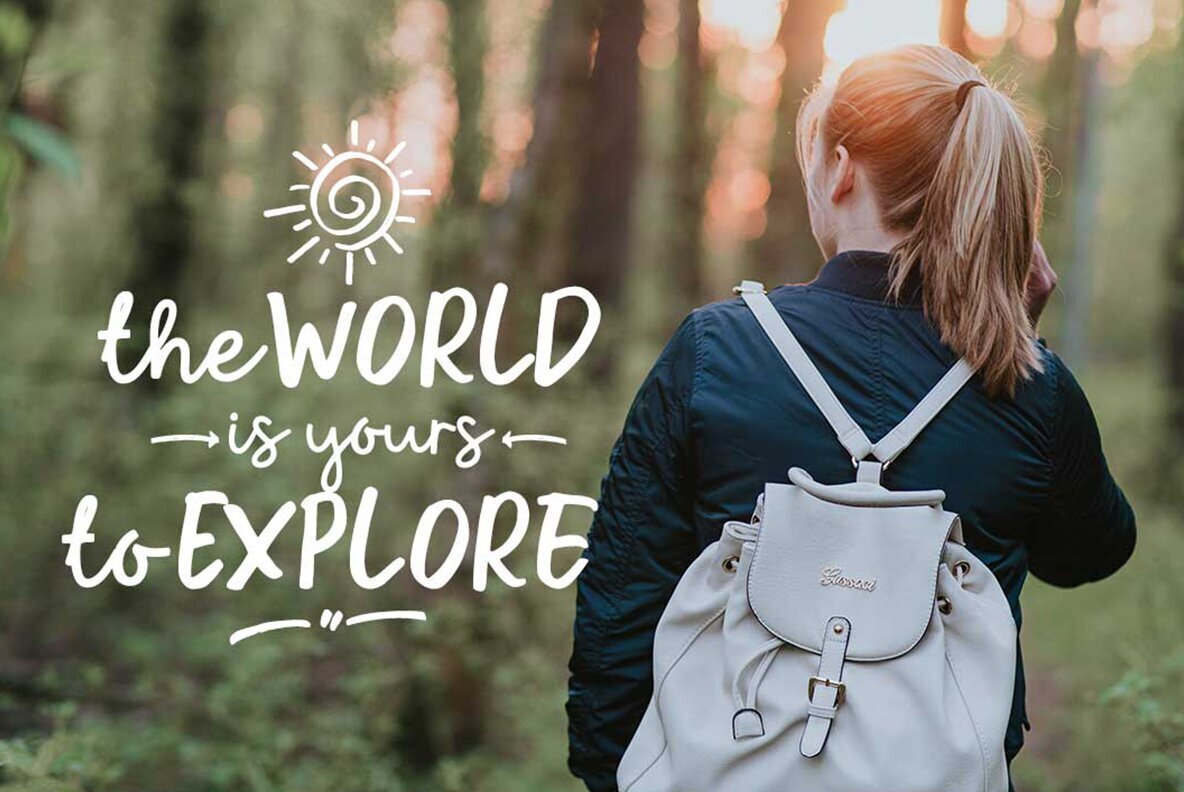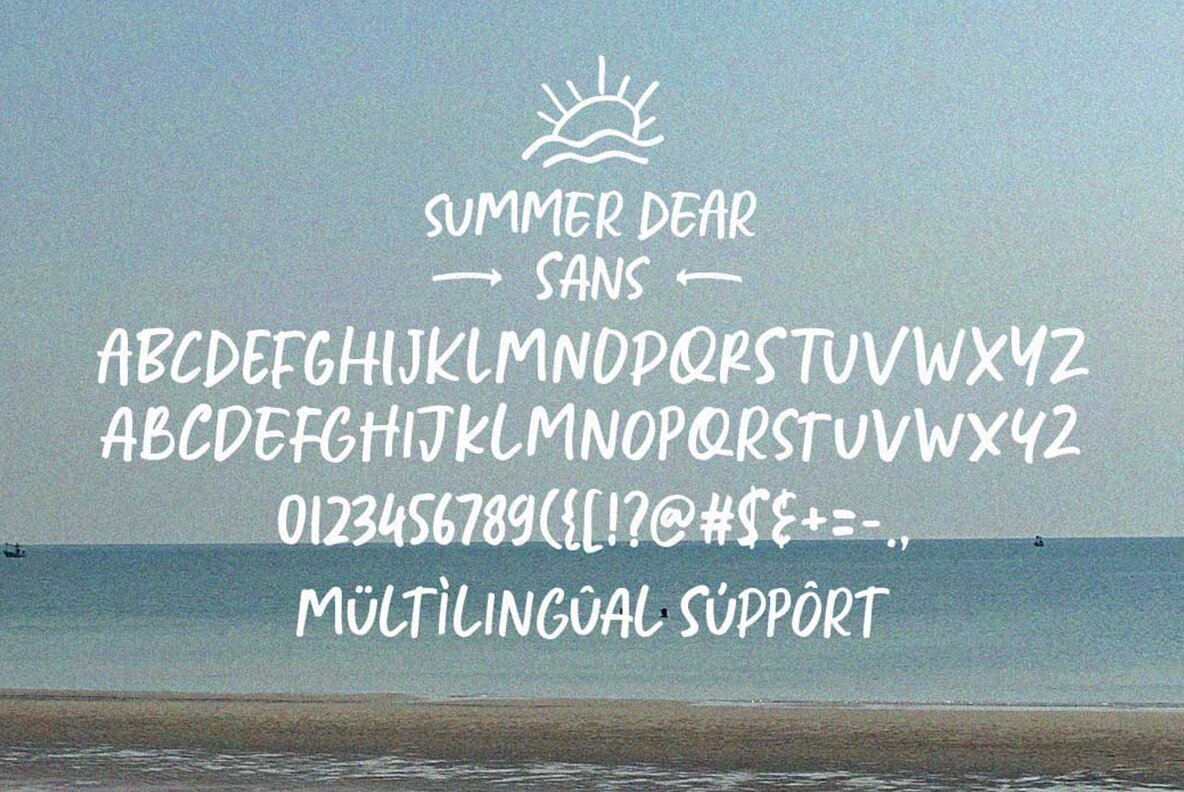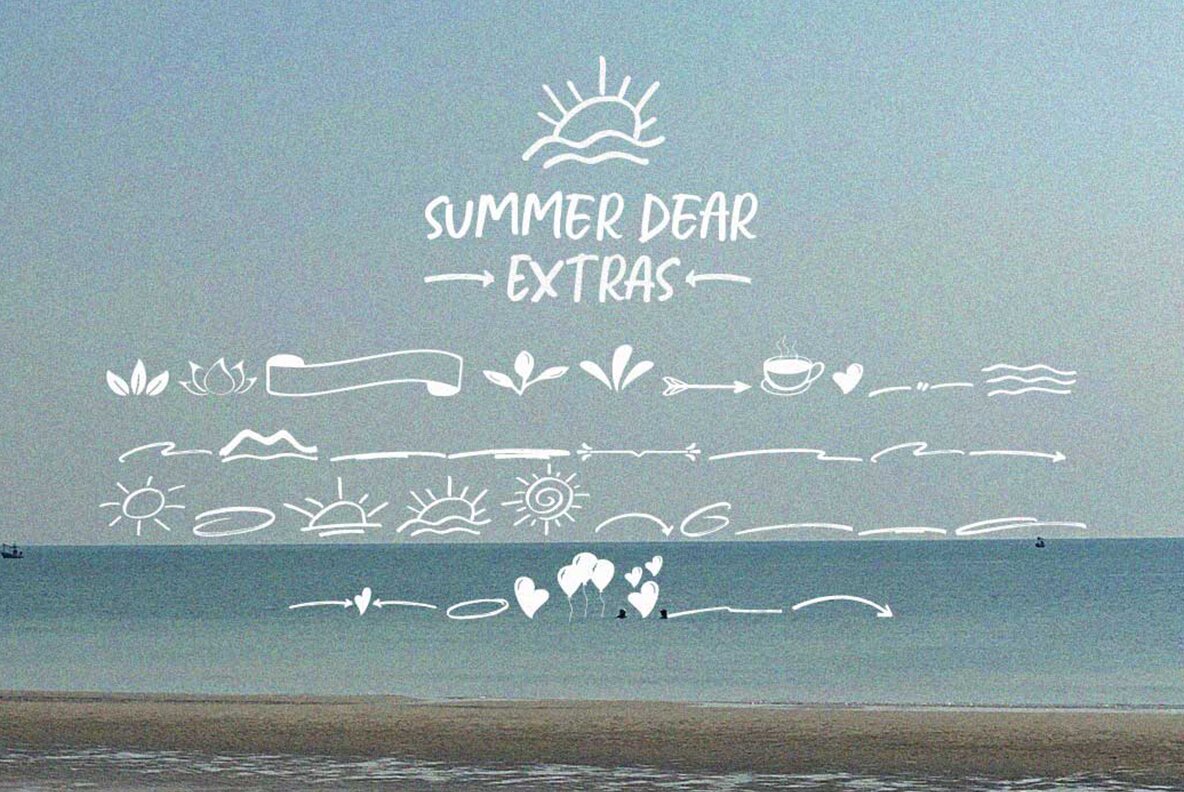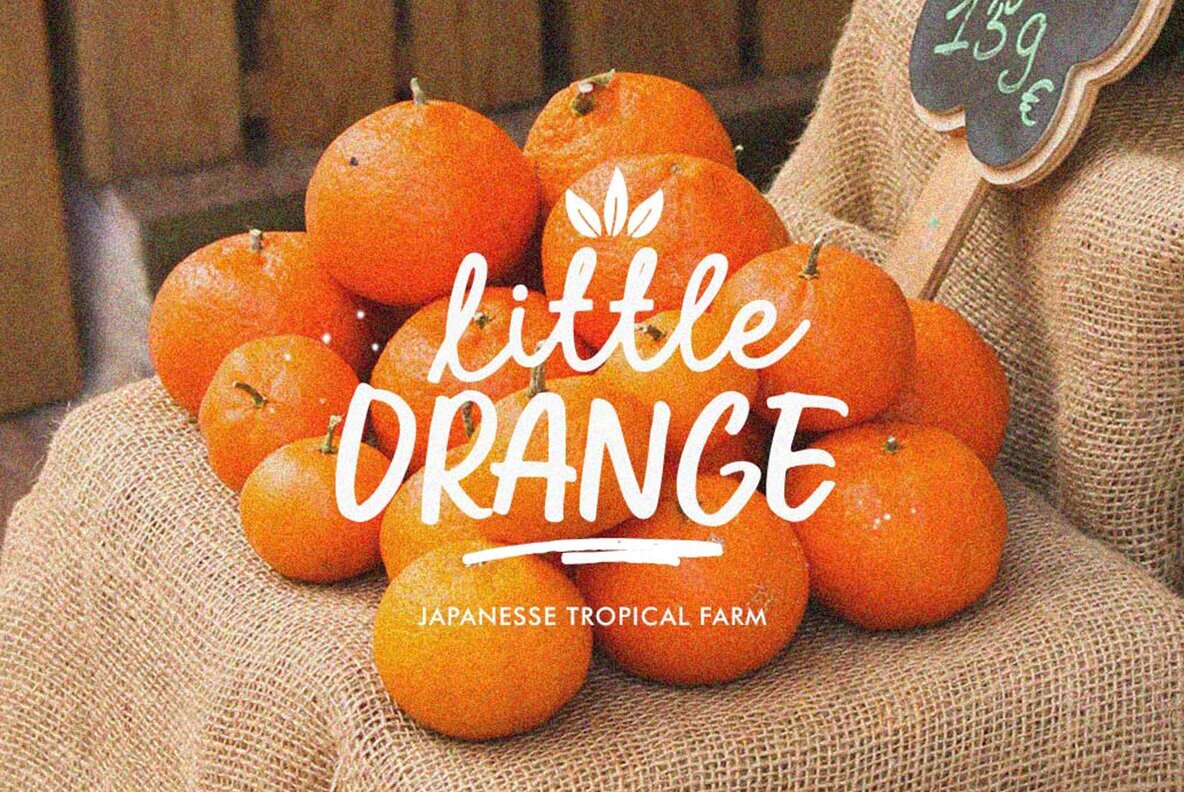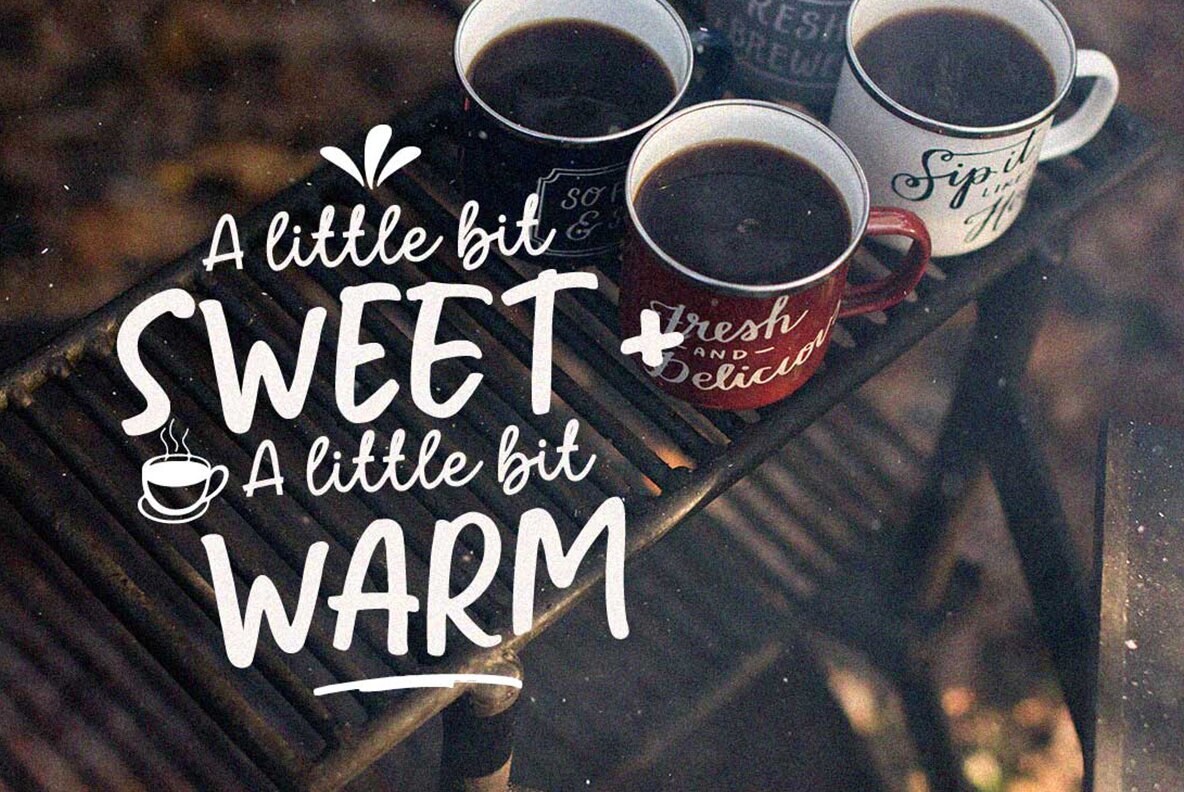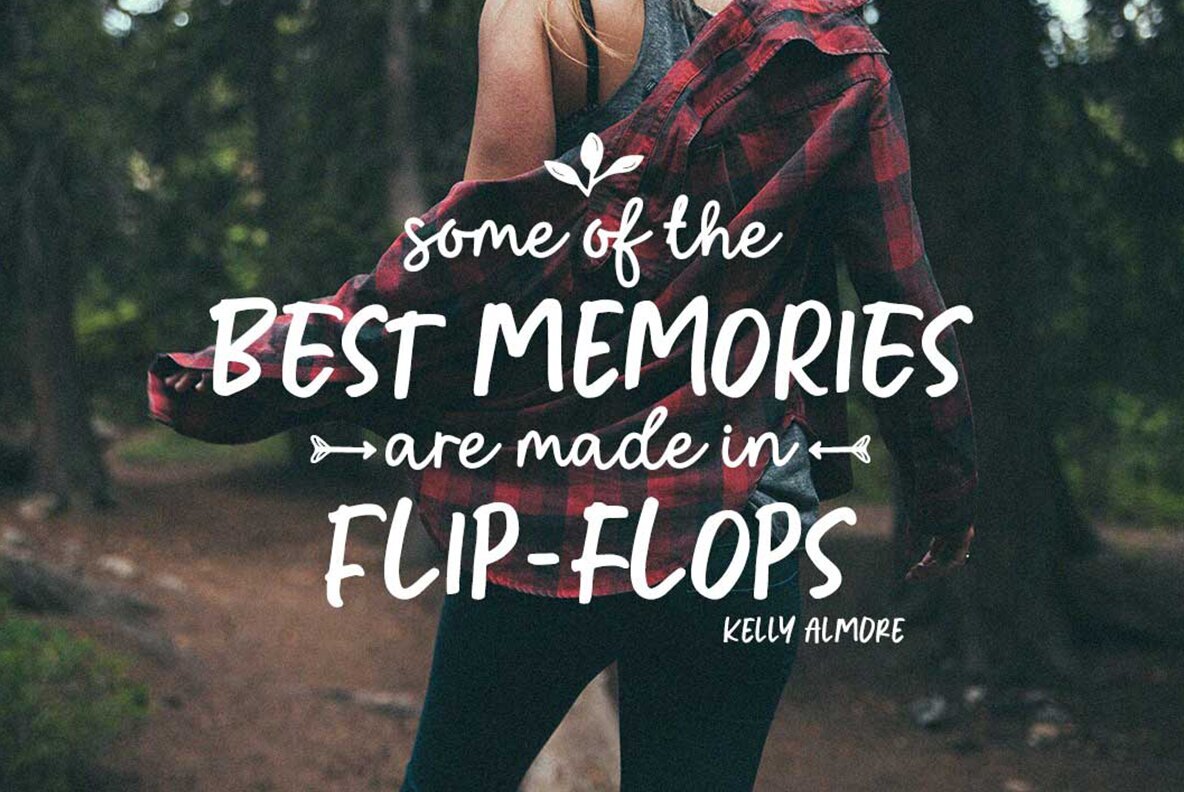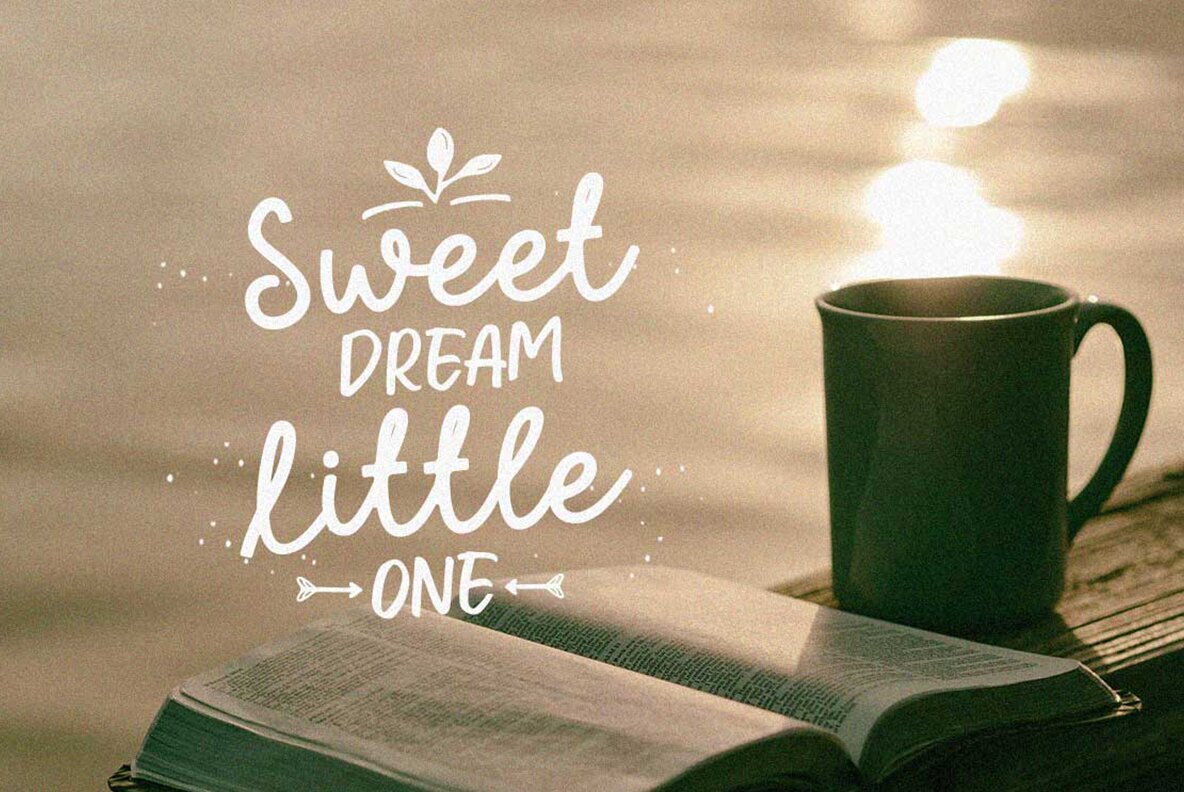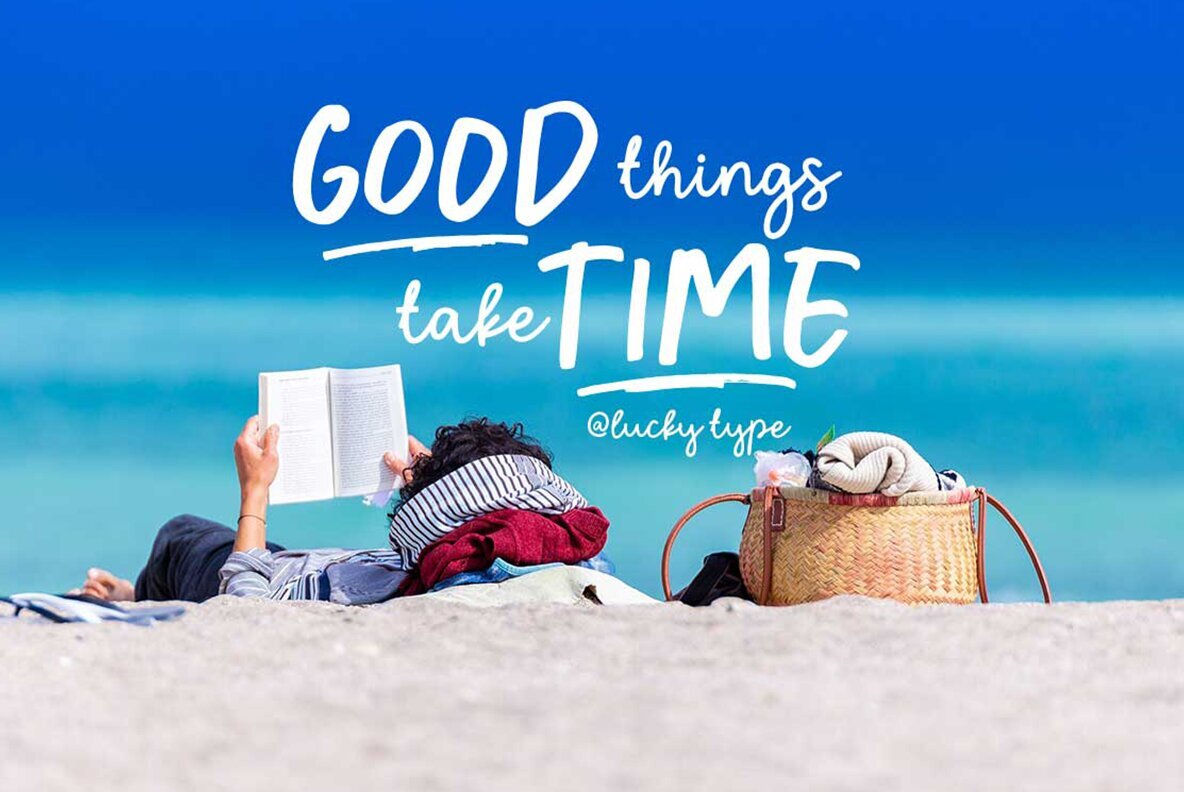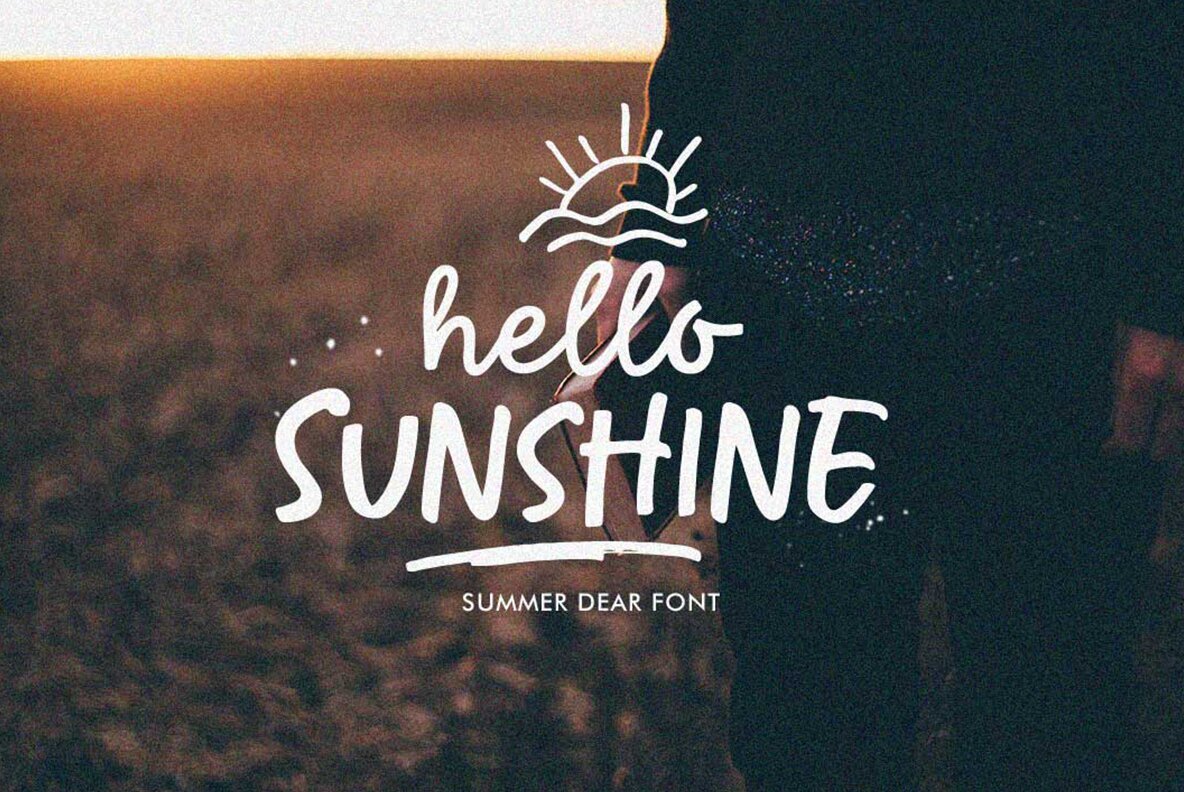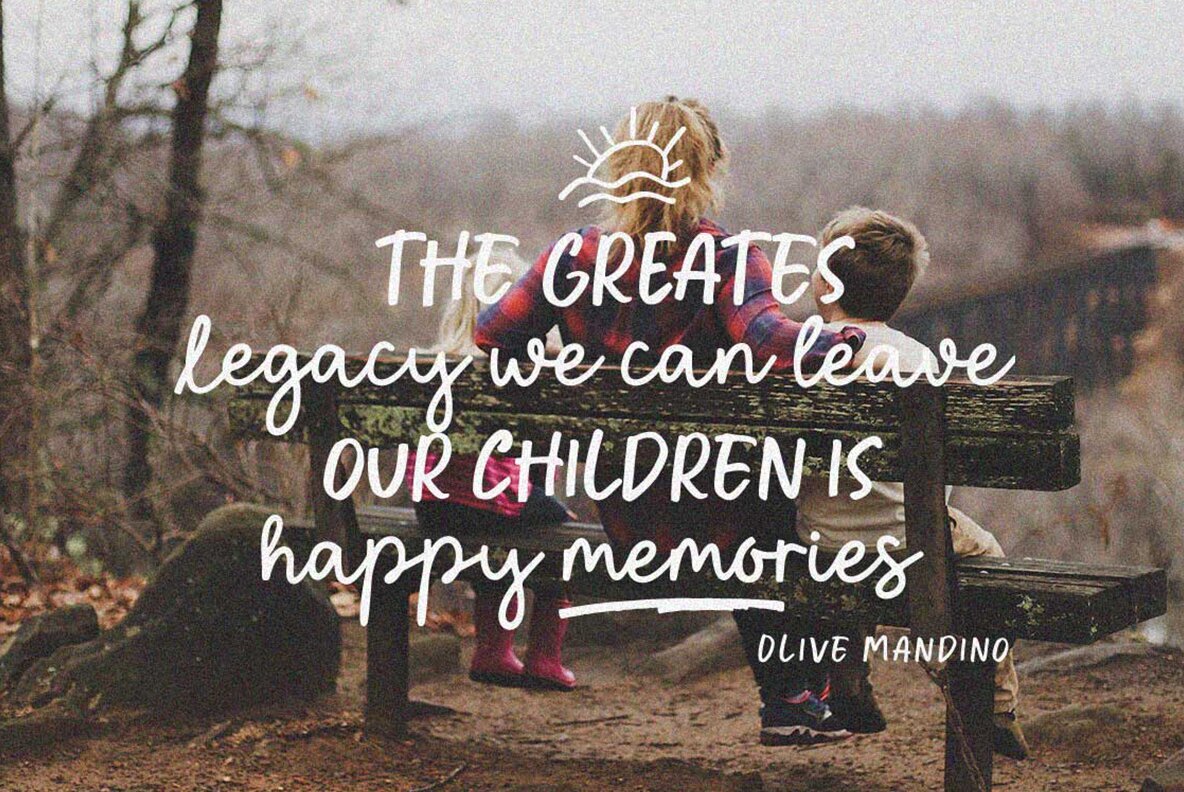
Summer Dear Font
Introducing a delightful combination of handwritten charm, the Summer Dear Font Duo + Extras is crafted to bring a natural and distinctive touch to your designs. Its unique style is perfect for adding a personalized feel to any project. This typeface includes numerous OpenType Ligatures, enhancing its fluidity and providing an authentic handwritten look.
In addition to its elegant script, the font package comes with over 30 handcrafted elements to enrich your creative projects. These extras offer versatile design possibilities, allowing you to customize your work with ease. Whether you're working on branding, invitations, or social media graphics, this font duo ensures a charming and cohesive visual appeal that truly stands out.